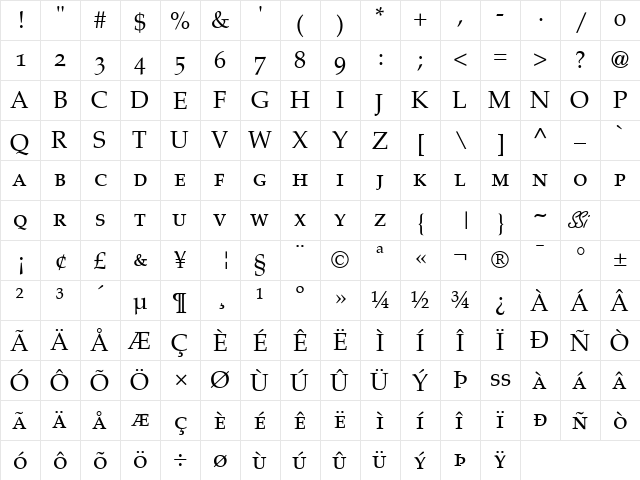
Criteria OldStyle SSi Small Caps
Design Context for Criteria OldStyle SSi Typeface
Criteria OldStyle SSi carries the refined structure of traditional serif typography, with bracketed terminals and considered proportions that communicate credibility and craft.
Pro Tip: Use Criteria OldStyle SSi for editorial body copy and considered headline work. Pair with a neutral sans for UI elements or captions to create a classic hierarchy.